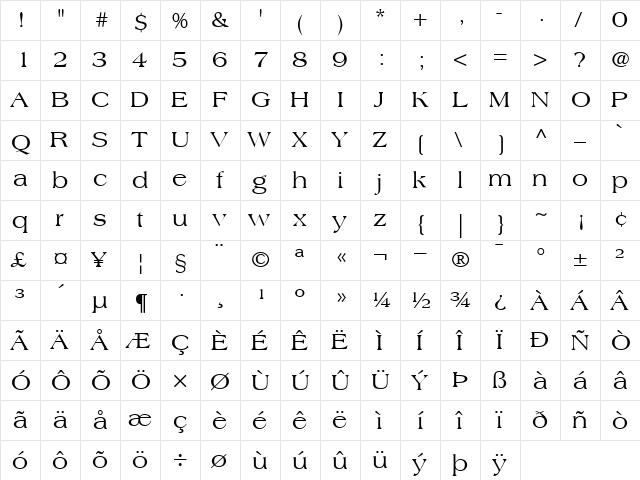
AmericanaRoman Roman
Design Context for AmericanaRoman Typeface
AmericanaRoman is a composed and adaptable typeface that performs quietly and consistently across a wide range of design contexts.